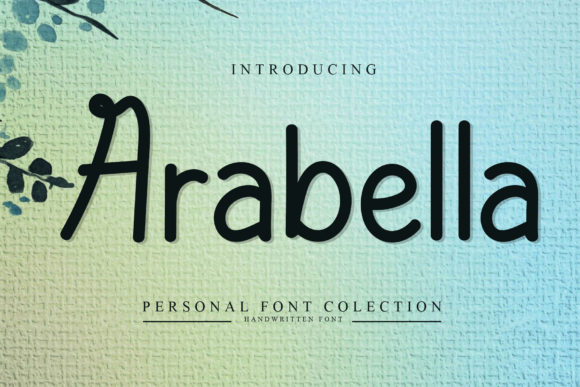
The Designer’s Delight: Getting to Know the Arabella Font
I’ll never forget the time I was working on a project for a client who wanted a fun and playful vibe, but I just couldn’t seem to find the right font to match their vision. I scoured the internet, tried out dozens of fonts, but nothing seemed quite right. That was until I stumbled upon the Arabella font. It was like a breath of fresh air – simple, yet with a strong visual effect that instantly elevated my design. In this article, I’ll share my experience with the Arabella font, its features, and how to make the most of it in your designs.
A First Impression: What I Love About Arabella
The Arabella font has quickly become one of my go-to fonts for projects that require a fun and friendly display font. Here are some things I love about it:
- ✨ Unique yet simple design: Arabella has a distinct look that’s both simple and visually appealing.
- ✅ Easily stands out: This font has a strong presence that can instantly elevate your design.
- 🌈 Versatile: Arabella can be used for a wide range of projects, from digital designs to print materials.
The Not-So-Perfect: A Few Quirks
No font is perfect, and Arabella is no exception. Here are a few things to keep in mind:
- 🤔 Limited use for body text: While Arabella is great for display text, it may not be the best choice for longer blocks of text.
- ⚠️ Some glyphs may not work well in all contexts: As with any font, it’s essential to test Arabella’s glyphs and OpenType features in your design to ensure they work well together.
The Story Behind Arabella
While the true story behind Arabella’s creation may be unknown, it’s easy to imagine that the designer was inspired by the elegance of handwritten scripts and the playfulness of modern fonts. Perhaps they wanted to create a font that would be both fun and sophisticated, perfect for designs that need a little extra personality.
| Author | GiaLetter |
| What type of projects is Arabella best suited for? | Arabella is perfect for designs that require a fun and friendly display font, such as logos, titles, and headings. |
| Can I use Arabella for body text? | While Arabella is great for display text, it may not be the best choice for longer blocks of text. Consider using a more traditional font for body text. |